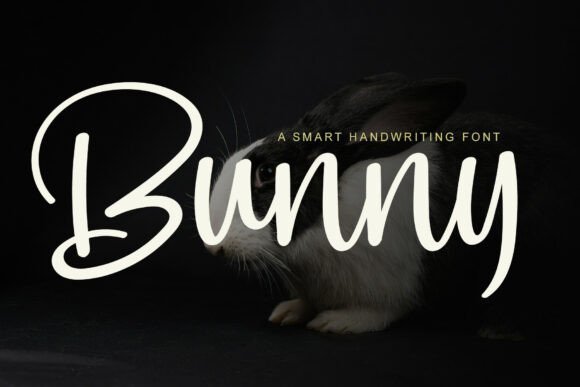
Discover the Magic of Bunny Font
You know that feeling when you’re brainstorming a new design idea and everything just clicks into place? The colors, the typography, the overall vibe – it all comes together in perfect harmony. For designers like you, finding the perfect font can be the key to unlocking that magic. That’s where Bunny Font comes in – a stunning, handwritten font that adds a touch of elegance to any design.
Bunny Font is more than just a pretty face; it’s a powerful tool that can elevate your creative projects from good to great. Whether you’re a seasoned pro or just starting out, this font is perfect for adding a personal touch to your designs. With Bunny Font, you can create stunning Instagram posts, beautiful calligraphy scripts, and DIY projects that will leave your friends and family in awe.
- Unique Characteristics: The font features a distinctive, hand-drawn style with whimsical details and playful flourishes, making it ideal for children’s books, greeting cards, and other creative projects.
Bunny Font Review
Overall, I was a bit skeptical about the “Bunny Font” at first, but after giving it a closer look, I found some aspects that really stood out to me. ✨ One thing I love is its unique and playful feel. It’s perfect for creating a whimsical atmosphere in a design project. The font’s rounded edges and soft lines make it instantly recognizable as a “bunny” font.
Another aspect I appreciate is its versatility. ✨ Bunny Font comes in a range of weights and styles, making it suitable for various design applications, from headings to body text. It’s also highly customizable, allowing designers to tweak its appearance to fit their specific needs.
While I enjoy working with the Bunny Font, there are some limitations to consider: ⚠️
- Legibility at smaller font sizes can be an issue. The font’s rounded edges and soft lines may become too delicate and lose their clarity.
- The font may not be suitable for formal or professional designs, as its playful feel may come across as unprofessional.
Overall, I think the Bunny Font is a great addition to any designer’s toolkit, but it’s essential to be aware of its limitations and use it accordingly.
Tips for Getting the Most Out of Bunny Font
For the best results, use Bunny Font in conjunction with bold or italic text to add emphasis. You can also use it in combination with other playful fonts to create a fun and whimsical design.
Bunny Font is ideal for children’s books, Easter-themed designs, and other spring-inspired projects. It’s also great for adding a touch of playfulness to social media graphics, blog posts, and other online content.